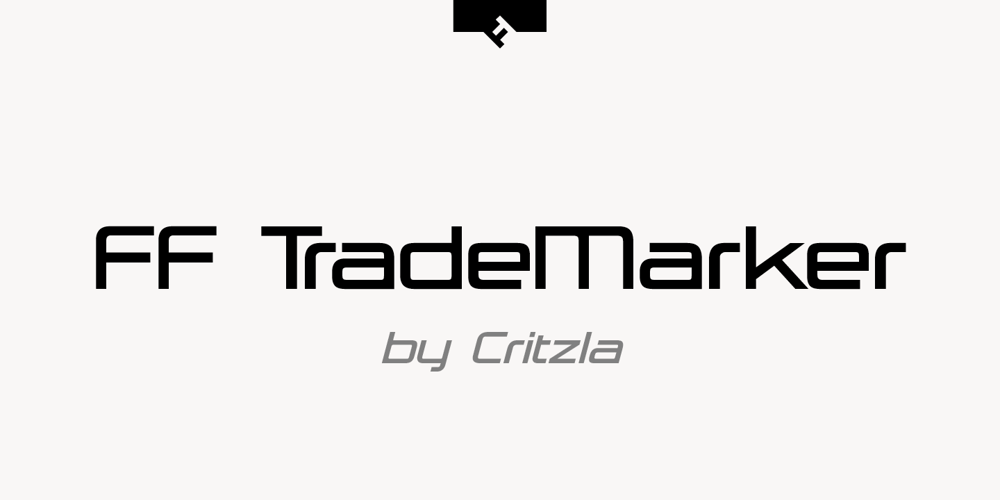
FF TradeMarker Font Family was designed by Critzla and published by FontFont. FF TradeMarker contains 6 styles and family package options. German type designer Critzla created this display FontFont in 1999. The family has 6 weights, ranging from Light to Fat (including italics) and is ideally suited for advertising and packaging, music and nightlife, poster and billboards, sports as well as web and screen design. FF TradeMarker provides advanced typographical support with features such as ligatures, alternate characters, case-sensitive forms, super- and subscript characters, and stylistic alternates. It comes with tabular lining and proportional lining figures.